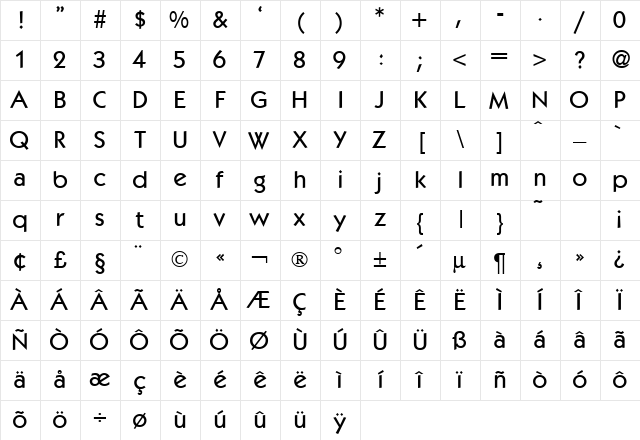
KabaleMedium Normal
Design Context for KabaleMedium
KabaleMedium is a composed and adaptable typeface that performs quietly and consistently across a wide range of design contexts.